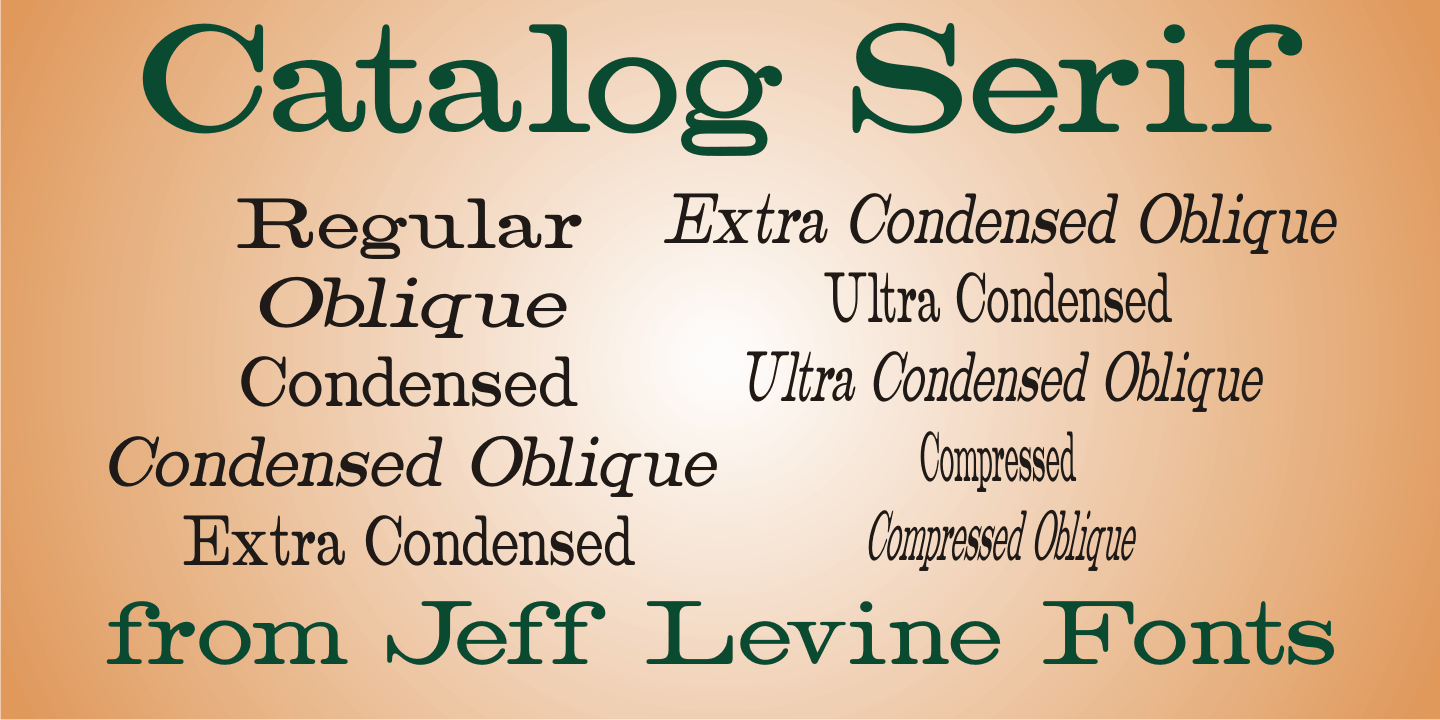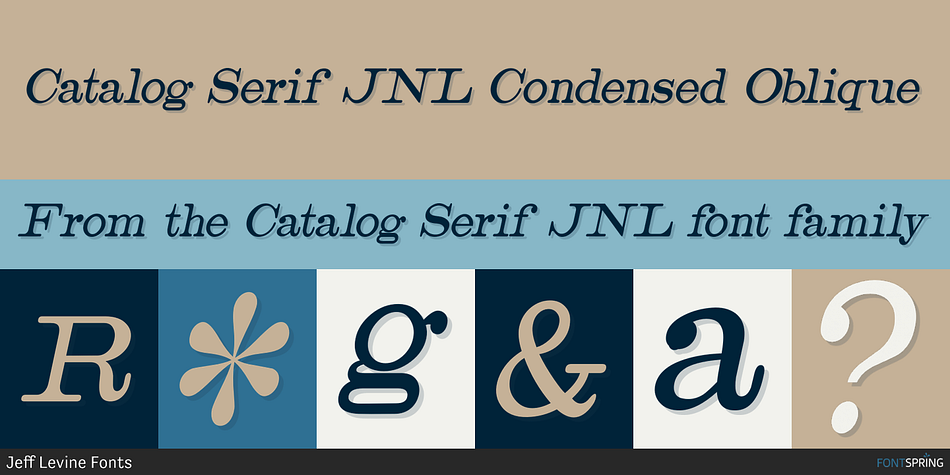
Catalog Serif JNL Condensed Oblique
Catalog Serif JNL is a serif font family. This typeface has ten styles and was published by Jeff Levine Fonts.
Based on text used as sub-headings within a reproduction of a sales catalog for stencil punch dies manufactured by S.M.
Based on text used as sub-headings within a reproduction of a sales catalog for stencil punch dies manufactured by S.M. Spencer & Co. (originally of Brattleboro, VT), circa 1868.
Catalog Serif JNL is available in regular, oblique, condensed, condensed oblique, extra condensed, extra condensed oblique, ultra condensed, ultra condensed oblique, compressed and compressed oblique versions.